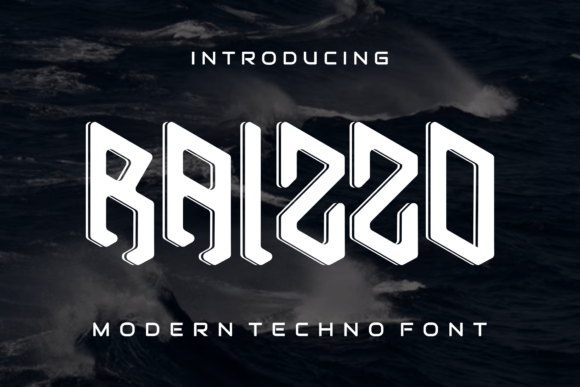
Raizo: A Designer’s Verdict on This Bold Sans Serif
When a new display font lands on my desk, I don’t jump straight to the marketing copy. I open it, set a few words in varying sizes, and let the letterforms do the talking. Raizo made a strong first impression — not because it shouted, but because it carried a quiet confidence that feels increasingly rare in modern typography. This is a sans serif typeface with a distinct voice, and after spending real time with it across mockups and project scenarios, I have a clear sense of where it belongs and where it might falter.
The Mood Raizo Brings to the Table
Raizo feels contemporary without chasing trends. Its letterforms are clean and assertive, with a subtle geometric structure that leans toward the architectural. The x-height is generous, and the terminals show a careful balance between sharpness and softness — not too rigid, not too playful. I’d describe the overall mood as confident and editorial. It doesn’t try to be friendly or quirky, which means it carries a certain weight that works well for premium positioning.
You can already imagine this typeface on a boutique product label, a fashion lookbook, or a bold poster for a cultural event. It has a visual personality that signals quality and intention. For brand owners and designers, that kind of inherent authority is a shortcut to building trust and recognition — as long as you use it in the right context.
Where Raizo Performs at Its Best
Through my testing, Raizo shines brightest when it’s given space and purpose. Here are the real-world applications where this sans serif typeface delivers consistently:
- Logo design and brand identity: Raizo holds up beautifully as a wordmark or hero element. Its uppercase forms are particularly strong, with a refined presence that feels memorable without being loud.
- Packaging design and product labels: On premium or minimal packaging, Raizo adds an immediate sense of value. It pairs especially well with matte finishes and neutral color palettes.
- Editorial design and magazine spreads: For headlines, pull quotes, and section titles, Raizo brings a crisp, authoritative tone that anchors the page. It works alongside serif body text with clear hierarchy.
- Posters, flyers, and promotional materials: As a display font in poster contexts, Raizo commands attention. Short phrases and key messaging benefit from its structured letterforms.
- Website headers and blog graphics: In digital contexts, Raizo remains readable and impactful for main headings. It holds its own on screen without feeling pixelated or fragile.
- Social media graphics and digital ads: For Instagram posts, LinkedIn banners, or campaign visuals, Raizo adds a professional edge that stands out in a crowded feed.
- Printable design and Canva templates: If you’re building templates for resale or client use, Raizo provides a reliable anchor for clean, contemporary layouts.
- Cricut projects and physical merchandise: For vinyl cutting, signage, or product customization, the clear geometry of Raizo handles physical production well.
Where to Use Raizo With Care
No font is perfect for everything, and Raizo has its boundaries. This is a display font at heart — use it where it can breathe. Small sizes, dense paragraphs, and long body text are not its natural habitat. The letterforms are designed for impact, not extended reading, so keep it in headlines, short phrases, brand marks, quotes, and decorative accents. When you push Raizo too small or crowd it into tight layouts, it can lose nuance and start to feel stiff.
For premium packaging, social posts, and brand touchpoints where a high-end mood is required, Raizo is a smart choice. But for supporting text or detail-heavy information, look to a secondary face that can carry the reading load. This is where understanding hierarchy and audience trust becomes essential: use Raizo for the moments that matter, and let something quieter do the rest.
Readability, Hierarchy, and Brand Consistency
Raizo scores well on readability at display sizes. The generous x-height and open apertures help maintain legibility even at moderate sizes. For hierarchy, it performs best when used as the top-level voice — the hero heading or the signature element. It has enough visual gravity to anchor a page or a package, but it doesn’t compete with surrounding elements if you give it room.
From a brand consistency standpoint, Raizo brings a coherent mood across applications. If your brand identity values modern sophistication, editorial clarity, or premium simplicity, this commercial font can unify your visual language across print, web, and social. The key is to resist the urge to use it everywhere. Reserve Raizo for the moments that define the brand voice, and your audience will recognize the deliberate intent behind each appearance.
Practical Designer Notes From Real Testing
Before you commit Raizo to a client project or your own brand, here is what I learned from hands-on use:
- Test it in black and white first. Raizo’s structure reveals its true personality without color. If it works in grayscale, it will work in any palette.
- Check small-size readability. Below 18 points, Raizo loses its nuance. It is not built for captions or fine print. Respect its scale.
- Try it on real mockups. A digital preview only tells part of the story. Place Raizo on a product package, a poster mockup, or a social media template. See how it interacts with real layouts.
- Compare uppercase and lowercase. Uppercase in Raizo feels architectural and bold. Lowercase is slightly more approachable but retains the same structure. Your choice changes the mood significantly.
- Review spacing and kerning. Raizo has good default spacing, but tight settings can cause letters to feel crowded. For logo work, manual kerning adjustments are advisable.
- Test font pairings with intention. Raizo works well beside a serif font for body text — try a classic or transitional serif for contrast. Pair it with another sans serif font that has a lighter weight for hierarchy. A script font or handwritten font can soften Raizo’s formality in wedding or lifestyle contexts. For maximum visual tension, pair Raizo with a distinct display font in a contrasting style.
- Confirm commercial licensing. Before using Raizo in client work, logo design, or any commercial project, verify the license covers your use case. This is a premium font, and proper licensing protects both you and your client.
Raizo in the Context of Modern Typography
In the broader landscape of modern typography, Raizo holds a clear position. It is not trying to be a neutral workhorse. Instead, it offers a specific visual attitude that designers can leverage for branding, editorial, and product work that demands a self-assured look. Compared to more generic sans serif typefaces, Raizo brings a sharper identity — one that says “I was chosen intentionally.”
For brand identity projects, especially in fashion, beauty, premium lifestyle, and creative industries, Raizo can serve as the anchor typeface that defines the visual tone. For digital product creators, printable design makers, and social media graphics specialists, it offers a reliable tool for building professional-looking assets that don’t rely on overused options. As a creative font with a clear point of view, Raizo is a worthy addition to any designer’s toolkit — but only if you understand its strengths and limits.
Final Thoughts on Raizo for Real Projects
Raizo is not a font you default to when you need something safe. It is a font you choose when you want to make a deliberate statement. Whether you are working on logo design, packaging design, editorial design, or web design, Raizo offers a strong, confident voice that can elevate your project — provided you give it the space and respect it requires.
My recommendation to fellow designers, brand owners, small business owners, and content creators: test Raizo with honesty. Use it where it shines, avoid it where it strains, and pair it with complementary typefaces that let it breathe. When used thoughtfully, this sans serif typeface becomes a genuine asset — one that builds recognition, trust, and a polished visual mood that audiences notice.
For anyone building a brand or crafting premium design assets, Raizo deserves a place in the shortlist. Just remember: great typography is not about the font alone. It is about what you do with it.